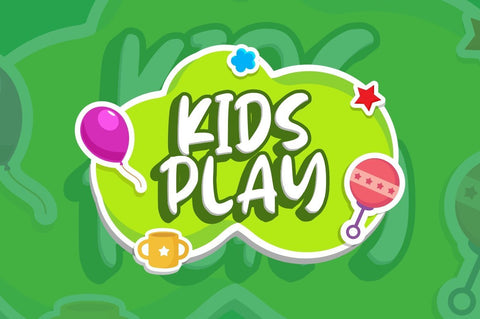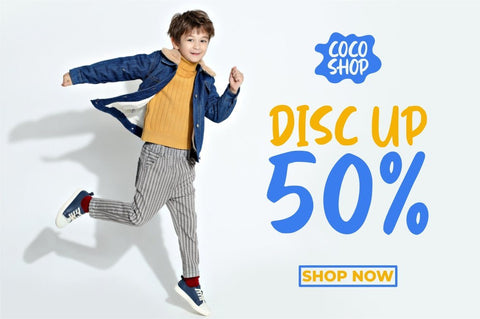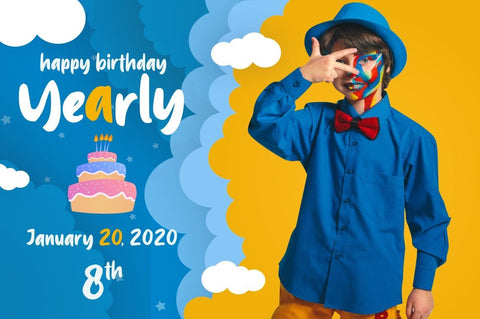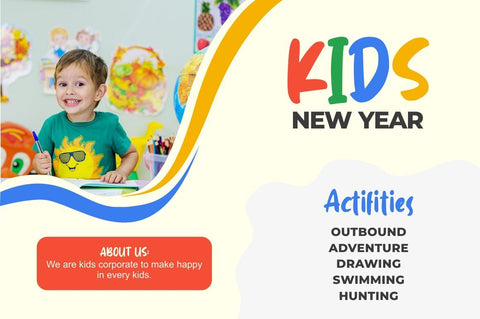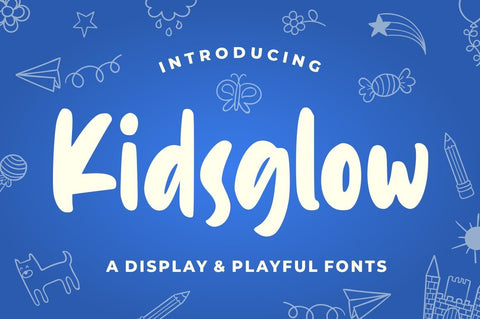
Kidsglow – Fun Font
Introducing Kidsglow – a Display & Playful Fonts
Kidsglow is the perfect font for all your fun designs. The main font file is equipped with ordinary characters (A-Z, a-z, 0-9, ligature and lots of punctuation), as well as more than 350 glyphs to support most Latin-based languages. Plus, it comes with super fun ligature!
Everything is made with the same brush, and everything is the same size as Letter Kids, so you can be sure they will work well together! It is suitable for you to use in making t-shirt design, quote, label, packaging, logo type, or long writing. Because we have compiled kerning and matrices that are tailored to your needs.
Kidsglow feature:
- Ligature Support
- More than 350+ glyphs
- 27 languages support (Look second last preview for support language you need)